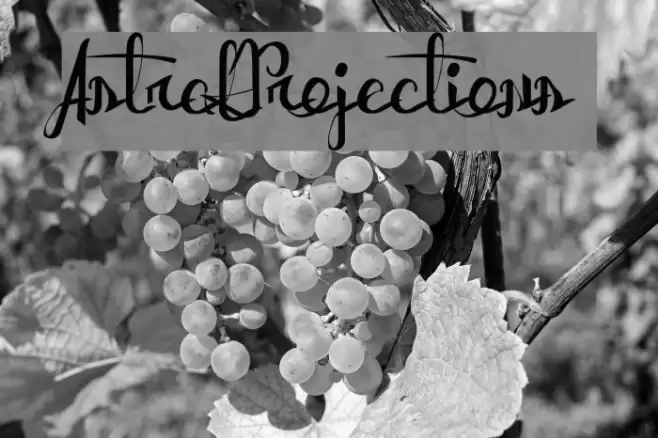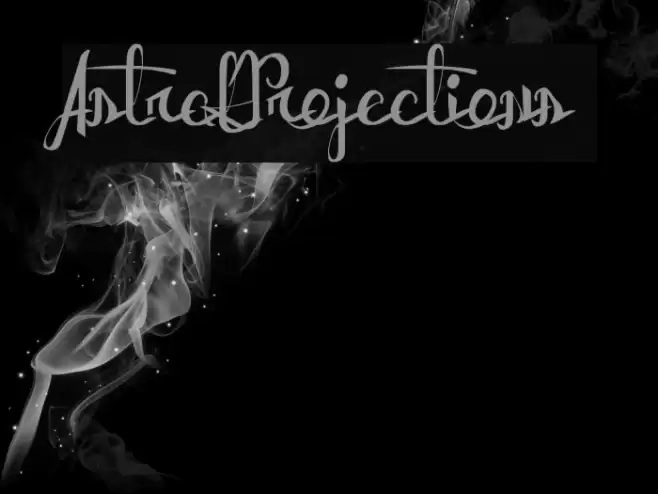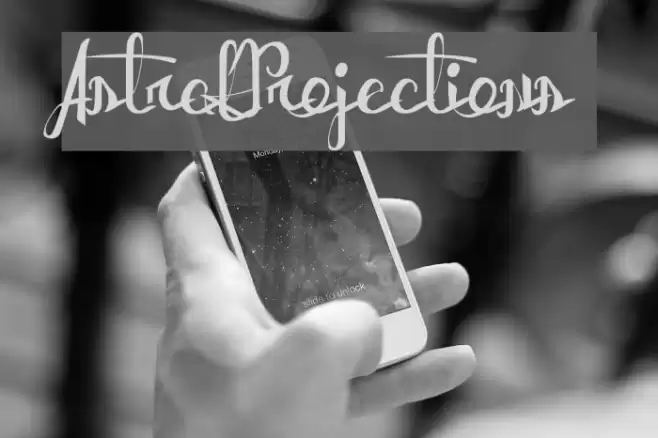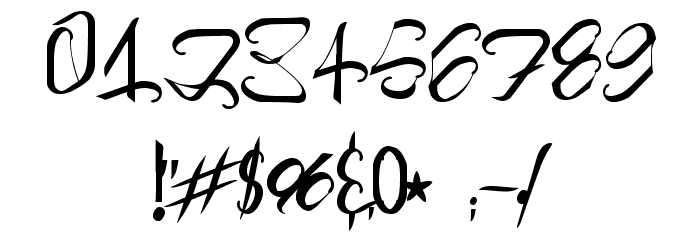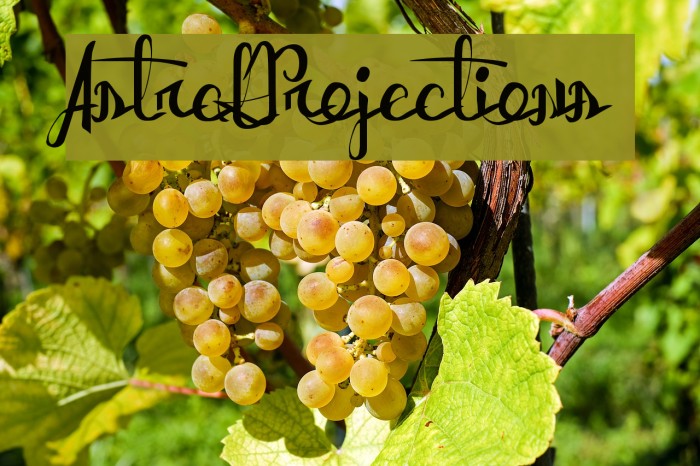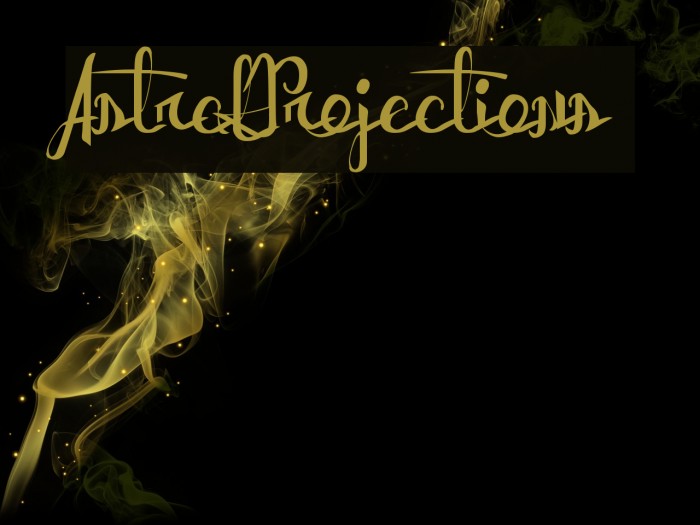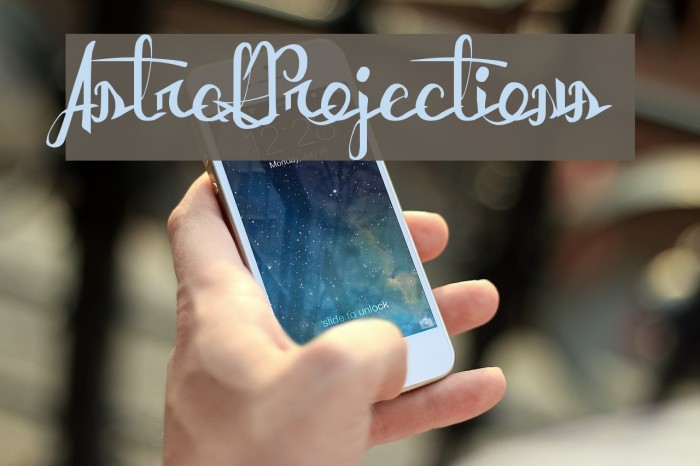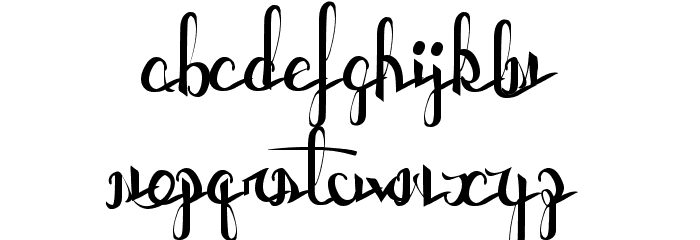
AstralProjections Font
AstralProjections Description
This font exhibits a highly decorative and artistic style, characterized by its intricate and overlapping letterforms. The uppercase letters are bold and dramatic, with a sense of movement and flair that suggests a handwritten quality. The lowercase letters maintain this fluidity, offering a more delicate and cursive appearance. Numbers and special characters follow the same ornate design, making the font suitable for creative and expressive projects. The overall impression is one of elegance and sophistication, with a unique twist that sets it apart from more traditional scripts.
An artistic and decorative script font with intricate, overlapping letterforms from Uncategorized fonts.
- Proposed Projects: Ideal for invitations, artistic posters, branding for luxury products, and any project requiring a touch of elegance and creativity.
- Character Spacing: Tight
- Use Case: Logos, Headlines, Artistic projects